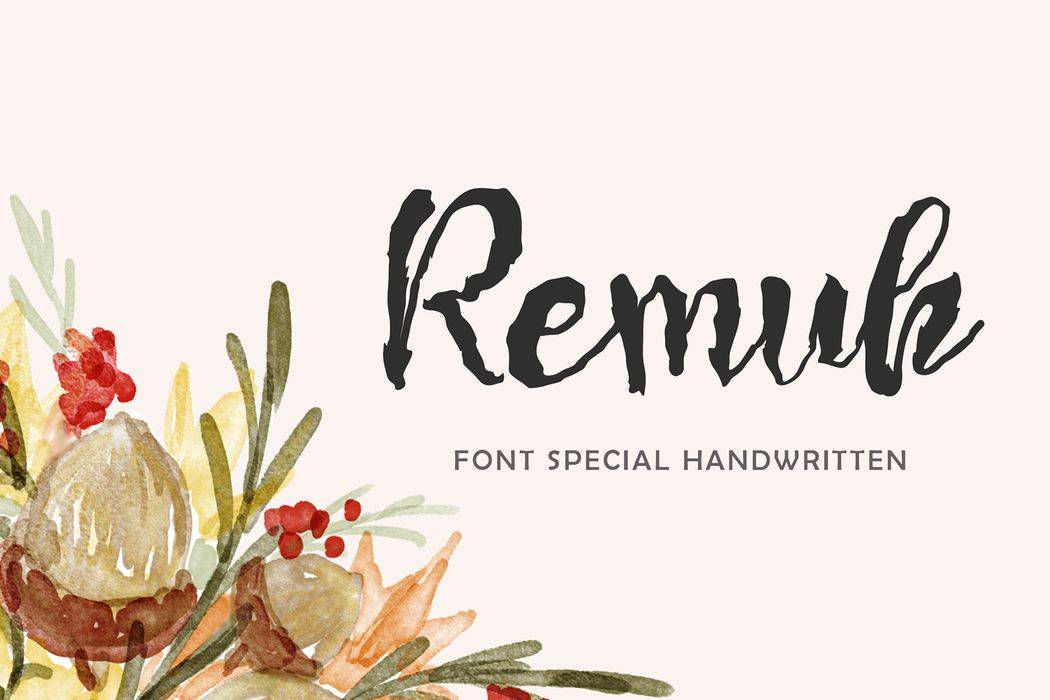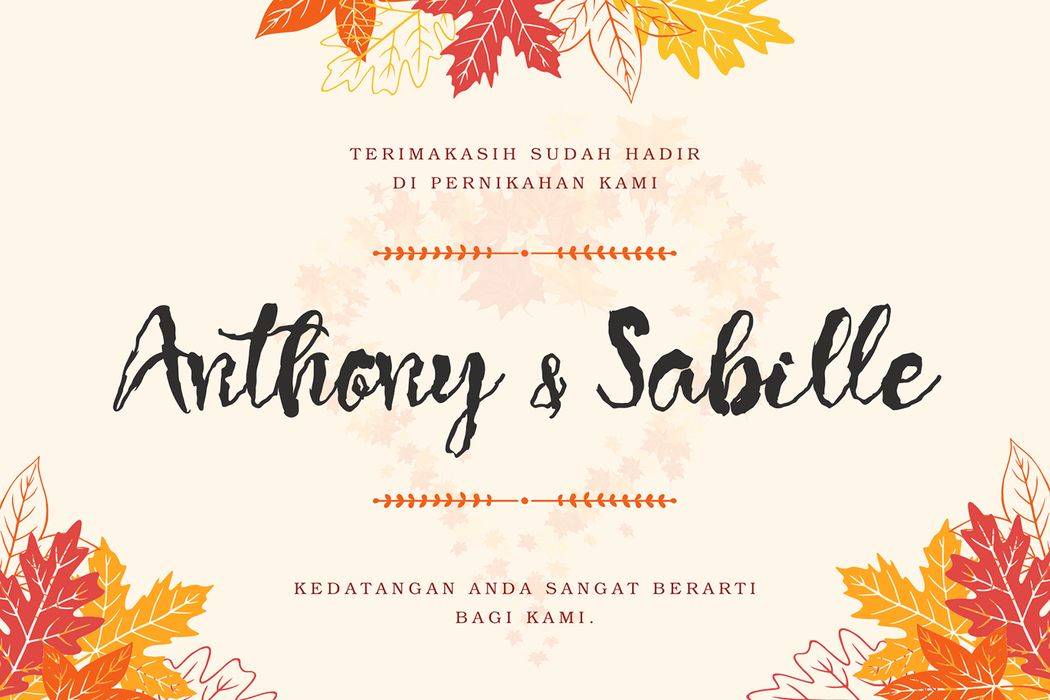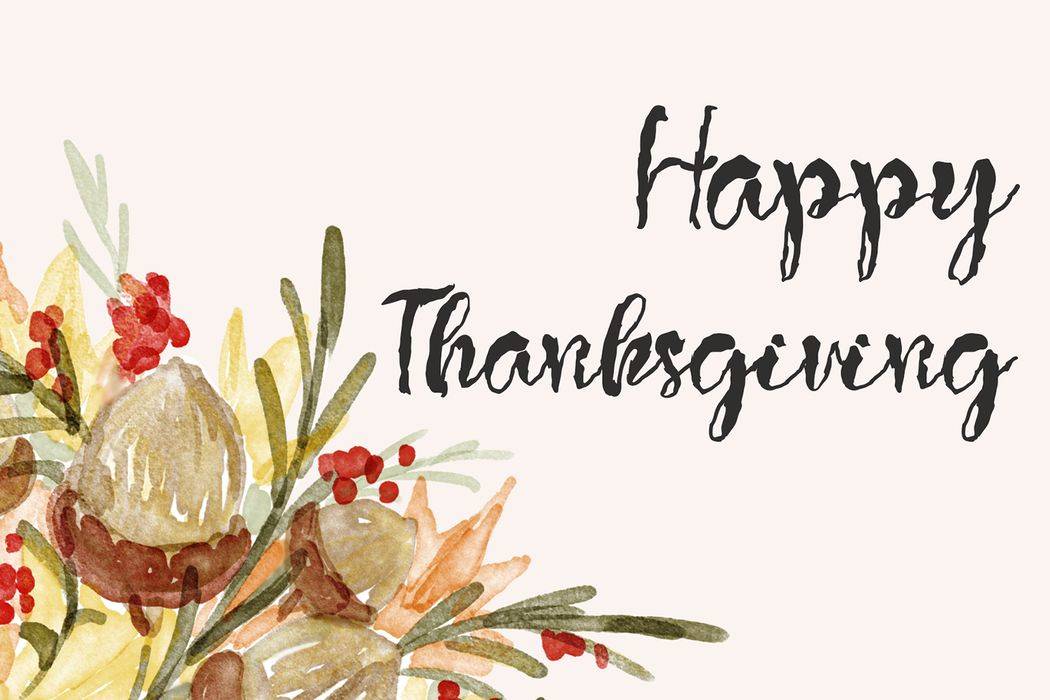
Remuk is a bold, expressive handwritten script font with a textured, brush-like appearance that gives it an organic and artistic feel. Its irregular strokes and casual style create a lively, handcrafted vibe ideal for creative branding, posters, and packaging where a personal, dynamic touch is desired. This font works best in attention-grabbing headlines or logos that want to convey creativity and authenticity.
Remuk Font
About Remuk Font
| Font family | Remuk Font |
| Release date | 2022-08-16 |
| Designer | Yoga Letter 2022 (Isroni Yoga Prasetya) |